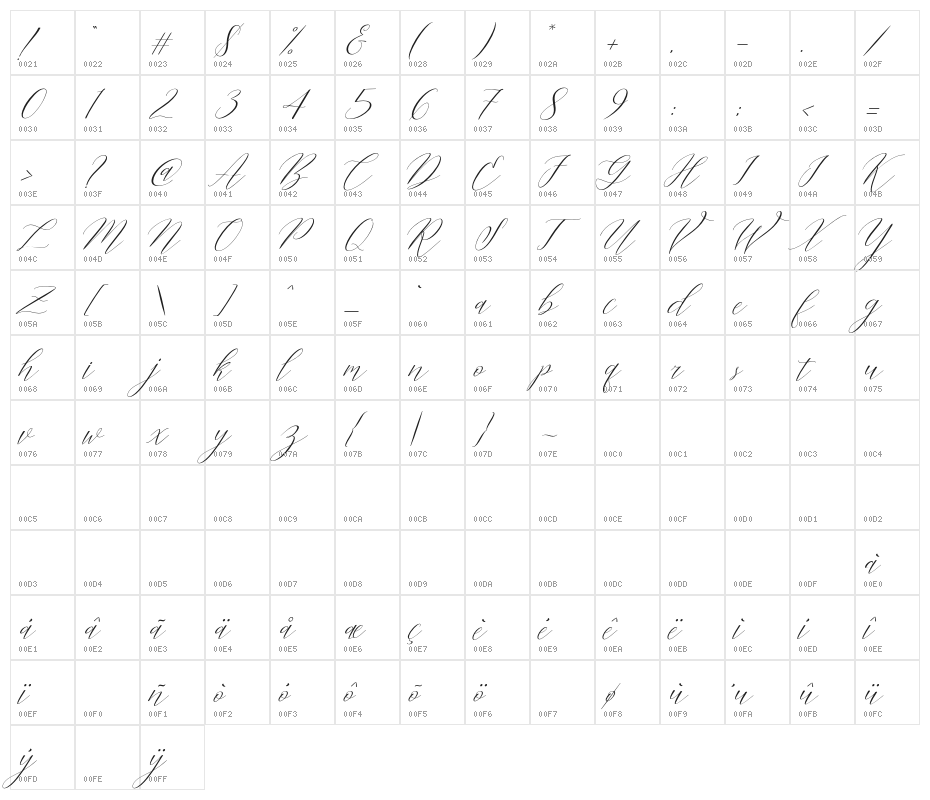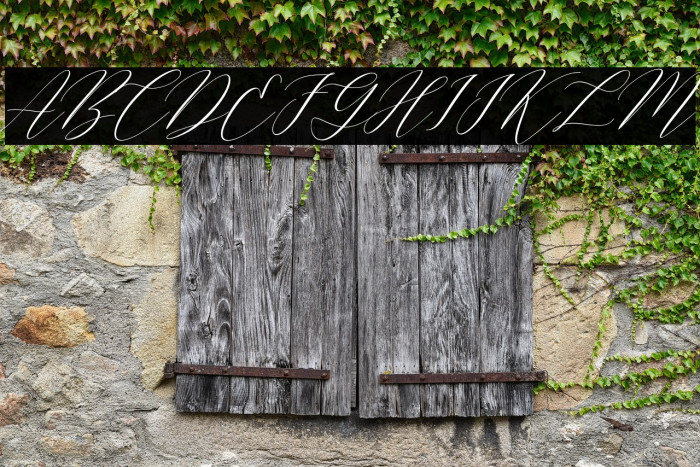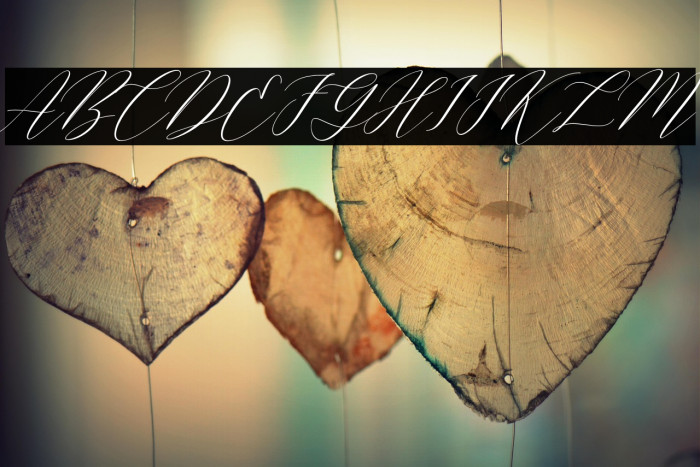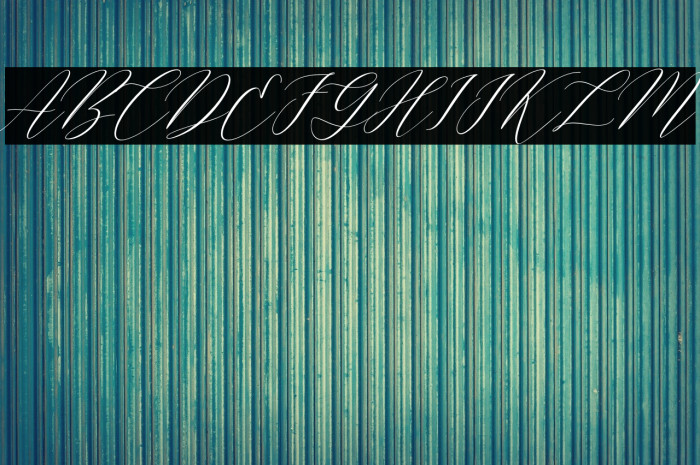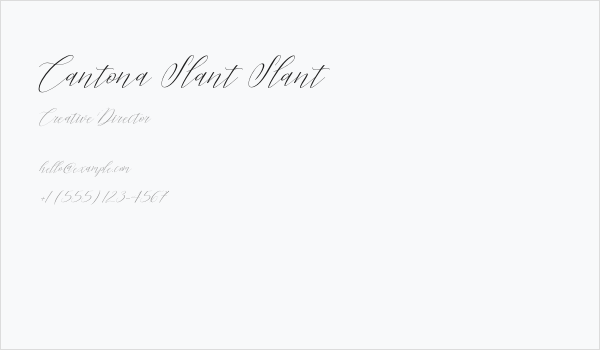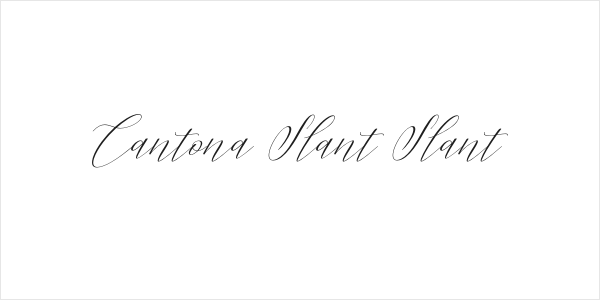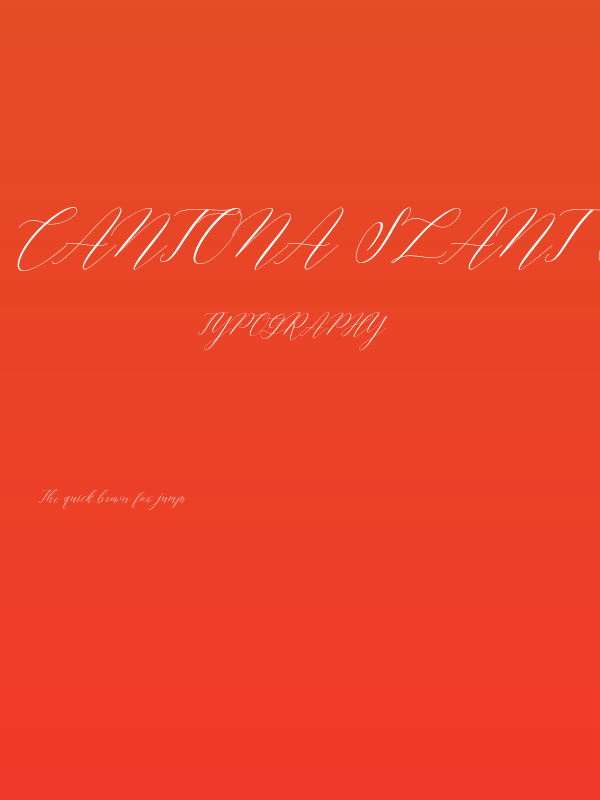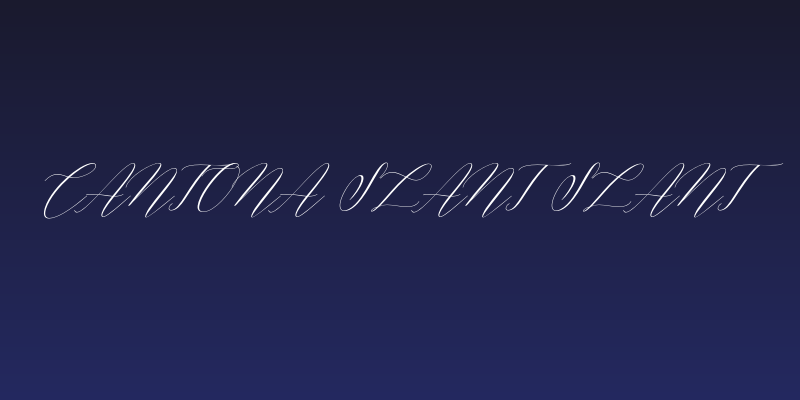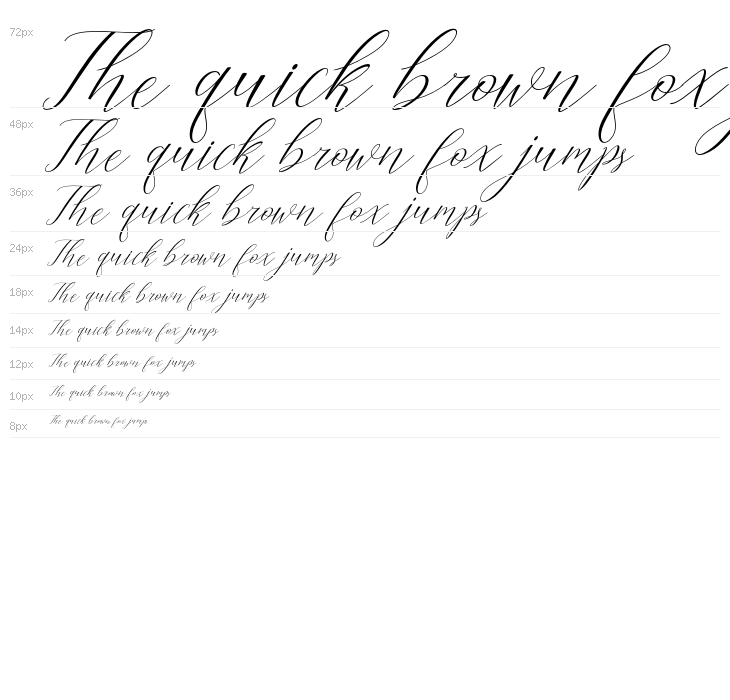
Cantona Slant Slant Font
Cantona Slant Slant Description
This elegant script font features a flowing, cursive style with a pronounced slant, giving it a dynamic and sophisticated appearance. The characters are connected, creating a seamless and fluid look. The uppercase letters are tall and graceful, while the lowercase letters maintain a consistent rhythm with delicate loops and swashes. The numerals and special characters are designed to complement the overall aesthetic, ensuring a cohesive appearance across all text. The font's high contrast in stroke thickness adds to its refined and polished feel, making it suitable for formal and decorative uses.
| Overall Style | Elegant, Decorative |
| Proposed Projects | Ideal for wedding invitations, elegant branding, luxury product packaging, and formal event programs. |